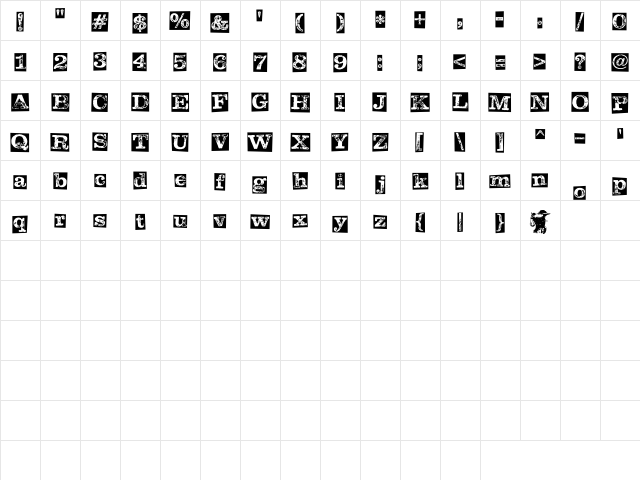
LD Letterpress Inverted Regular Free Font
LD Letterpress Inverted Regular
Design Context for LD Letterpress Inverted
LD Letterpress Inverted is a composed and adaptable typeface that performs quietly and consistently across a wide range of design contexts.